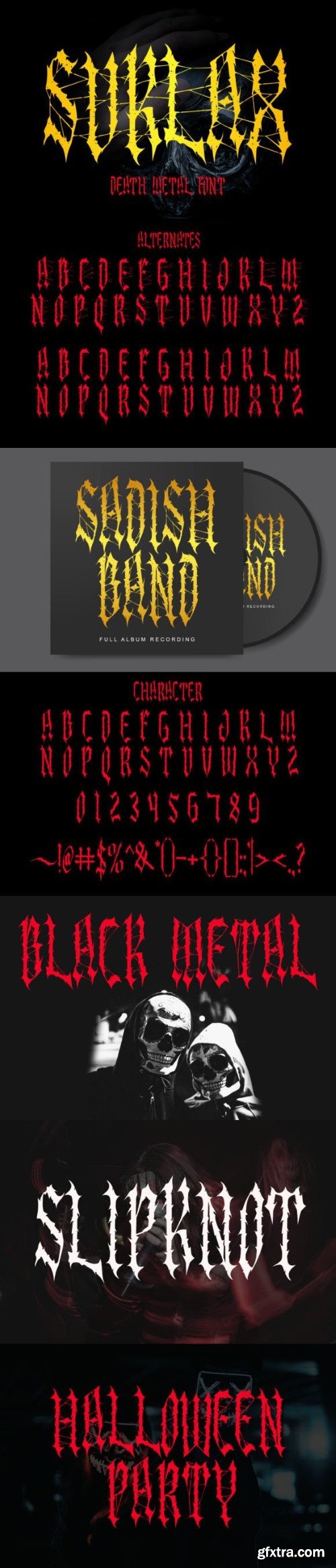
Introducing the Suklak Death Metal Typeface, a font that celebrates the Head Bangers and Black Metal culture while ensuring legibility. This typeface is perfect for various purposes, including promotional materials, metal poster quotes, product packaging, merchandise, and branding projects that demand outstanding designs.